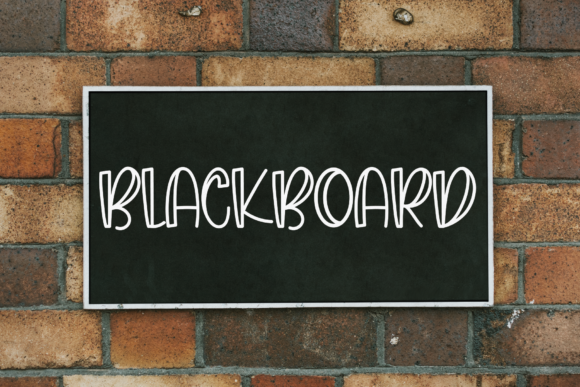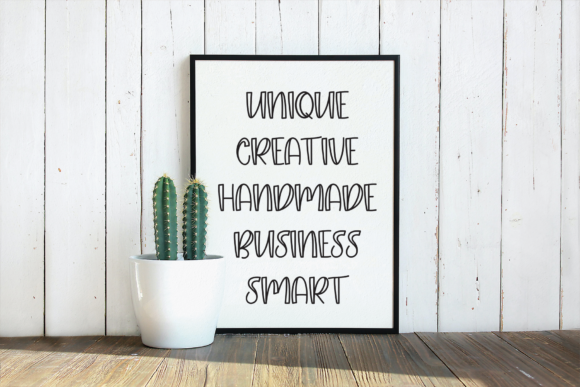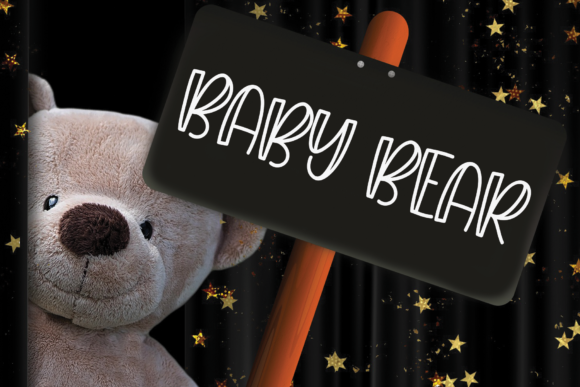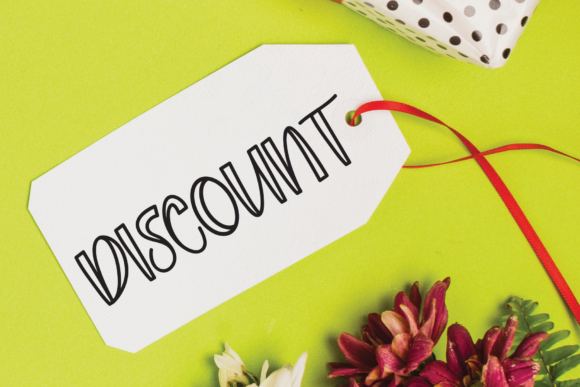
Introducing Breakfast Font: Elevate Your Designs with a Cool and Outlined Display Font
Are you tired of using the same old fonts in your designs? Do you want to add a touch of uniqueness and style to your creations? Look no further than Breakfast Font, a cool and outlined display font that’s sure to become a staple in your font library. In this article, we’ll explore the features and benefits of Breakfast Font, and how it can help take your designs to the next level.
What is Breakfast Font?
Breakfast Font is a modern and stylish display font that’s perfect for a wide range of design projects. Its unique outlined style gives it a distinctive look that’s both eye-catching and memorable. Whether you’re designing a logo, heading, or title, Breakfast Font is sure to make a statement.
Key Features of Breakfast Font
- Outlined Style: The outlined style of Breakfast Font gives it a bold and edgy look that’s perfect for designs that need to stand out.
- Cool and Modern: Breakfast Font has a cool and modern vibe that’s perfect for designs that need to look fresh and contemporary.
- Highly Versatile: Whether you’re designing a logo, heading, or title, Breakfast Font is highly versatile and can be used for a wide range of design projects.
- Easily Readable: Despite its outlined style, Breakfast Font is easily readable, even at smaller sizes.
Benefits of Using Breakfast Font
So why should you choose Breakfast Font for your designs? Here are just a few benefits of using this amazing font:
- Adds Visual Interest: The outlined style of Breakfast Font adds visual interest to your designs, making them more engaging and attention-grabbing.
- Elevates Your Brand: Using a unique and stylish font like Breakfast Font can help elevate your brand and make it stand out from the competition.
- Perfect for Headings and Titles: Breakfast Font is perfect for headings and titles, where you want to make a bold statement and grab the reader’s attention.
- Easy to Pair with Other Fonts: Breakfast Font is easy to pair with other fonts, making it a great addition to your font library.
How to Use Breakfast Font in Your Designs
So how can you use Breakfast Font in your designs? Here are a few ideas to get you started:
- Logos and Branding: Use Breakfast Font to create a unique and memorable logo that stands out from the competition.
- Headings and Titles: Use Breakfast Font to add visual interest to your headings and titles, and make them more engaging and attention-grabbing.
- Posters and Flyers: Use Breakfast Font to create eye-catching posters and flyers that grab the reader’s attention.
- Digital Designs: Use Breakfast Font in your digital designs, such as social media graphics, website headers, and more.
In conclusion, Breakfast Font is an amazing addition to any font library. Its unique outlined style, cool and modern vibe, and high versatility make it perfect for a wide range of design projects. Whether you’re a designer, craft, or DIY enthusiast, Breakfast Font is sure to become a favorite font that you’ll reach for again and again. So why wait? Download Breakfast Font today and start elevating your designs to the next level!